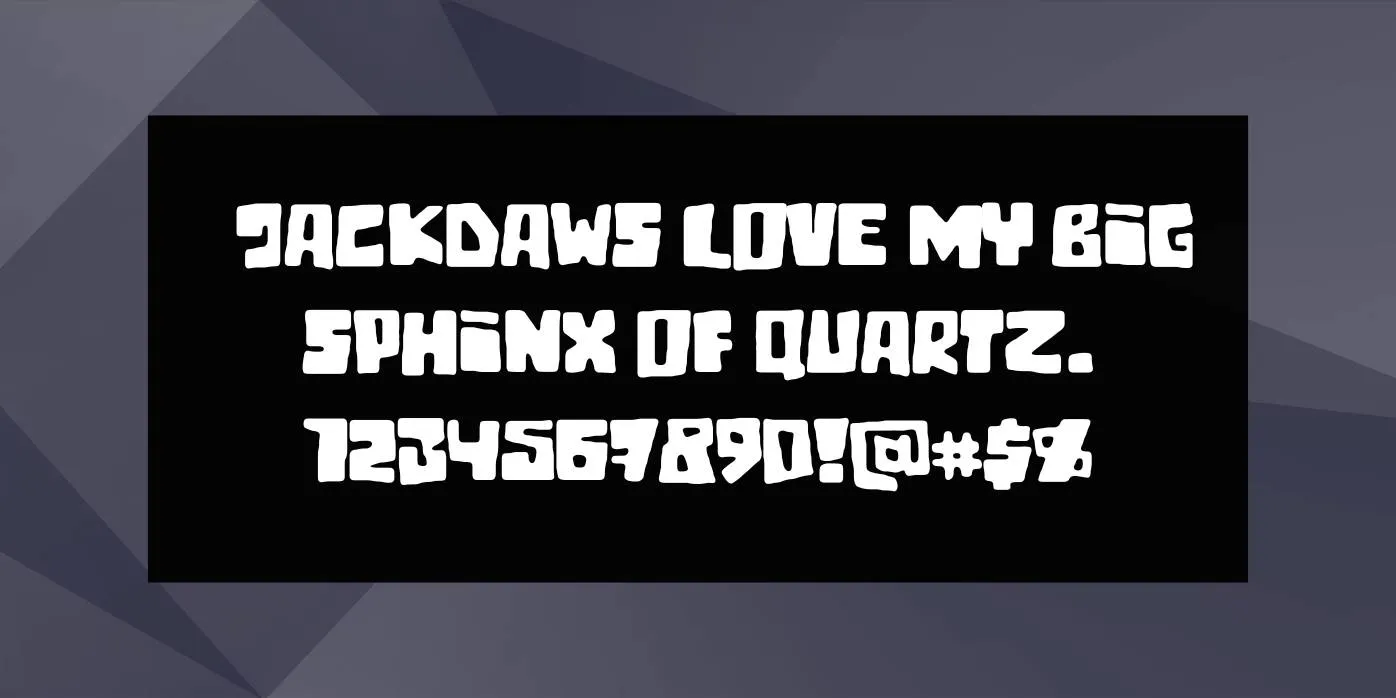
Tiki Tako Font belongs to the fancy/ cartoon font family designed by Woodcutter Manero, this font derives in TTF and OTF file formats, and it has a bold and clear look which is perfect for all types of displays.
This typeface has only one weight Regular and 236 different and unique characters and also contains both large and small alphabets, numerals, signs, symbols, punctuation, and plenty of special characters.
Using Tiki Tako Font for Eye-Catching Designs
This font can be used in the making of company logos, captions, announcements, drafts, assignments, articles, content, billboards, slips, ads, tags, headlines, newspapers, official presentations, invitation cards, business layouts, t-shirts, magazine and book covers, shop names, titles, cloth printing, and many other graphic design projects.
Many designers and beginners utilize this fantastic typeface in their displays for making them legible and unforgettable for the audience. If you are searching for a cartoon and stylish font style for your next fun project then no look further this typeface would be the perfect selection for you to enhance the beauty of your presentation.
Questions with Suitable Answers!
Who was the designer of Tiki Tako Font?
This cartoon font family was created by Woodcutter, it has a bold and clear look which is perfect for all types of displays.
What is a similar font to Tiki Tako Font on Adobe?
Poster Gothic ATF Heavy Font is one of the best and most similar fonts to this typeface on Adobe.
What is the best alternative to Tiki Tako Font?
Comicorn Font is the best alternative to this fantastic cartoon font family and its styles.